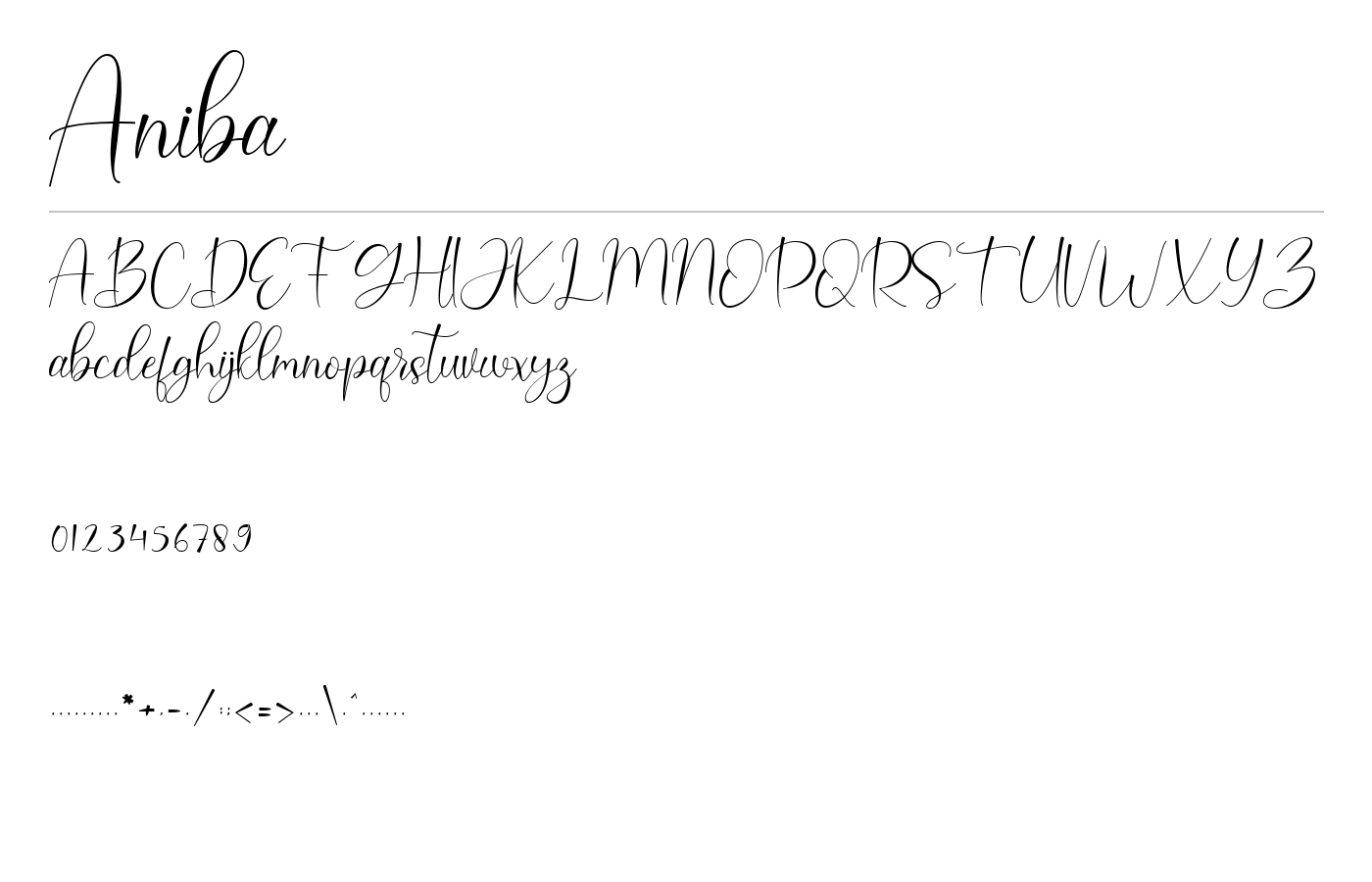
Aniba is an elegant script font featuring delicate, flowing strokes with a light and airy feel. Its slender, handwritten style with graceful curves makes it perfect for stylish branding, wedding invitations, and feminine editorial projects that require a sophisticated yet personal touch. This font shines in decorative uses where a refined, artistic flair is desired.
Aniba Font
About Aniba Font
| Font family | Aniba Font |
| Designer | Nabila Graphic Team |